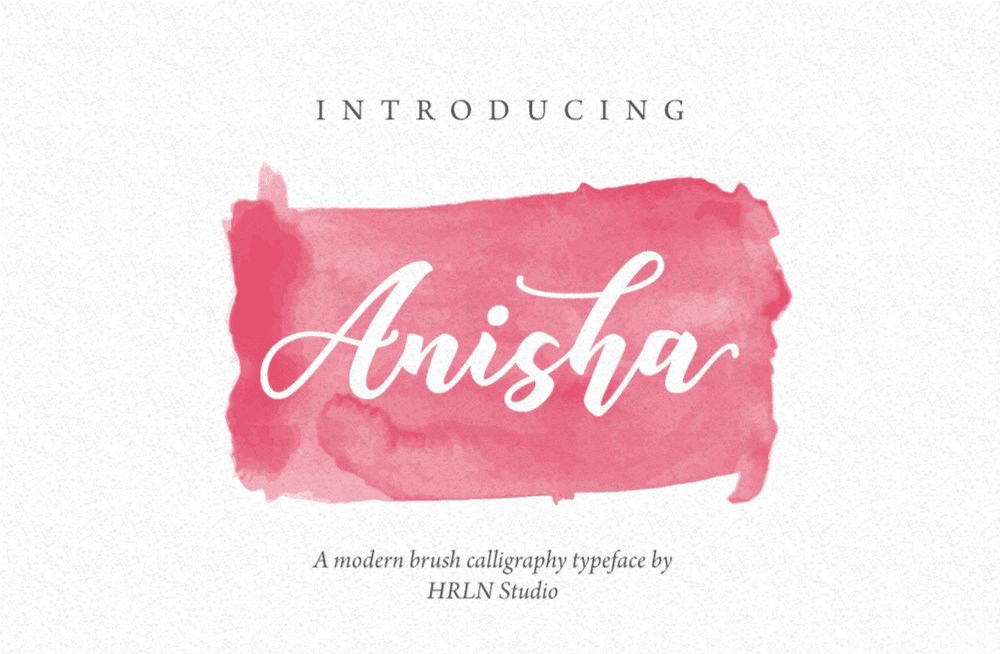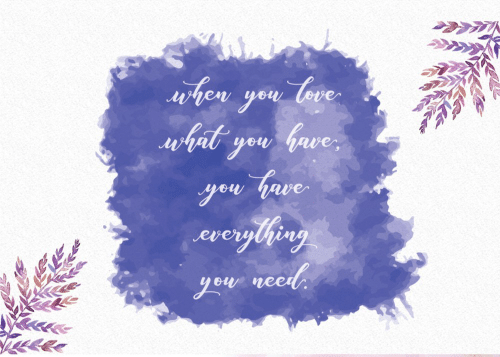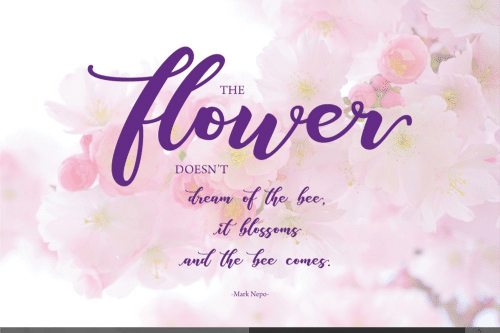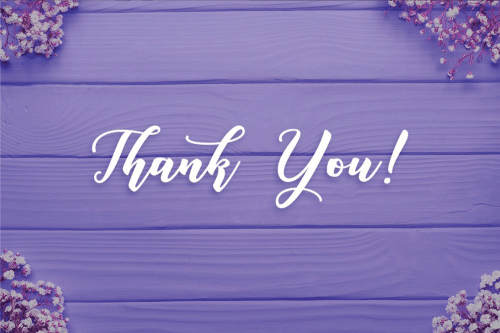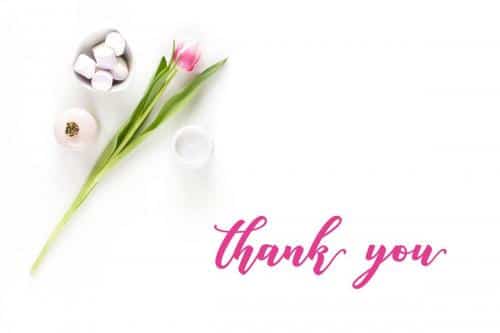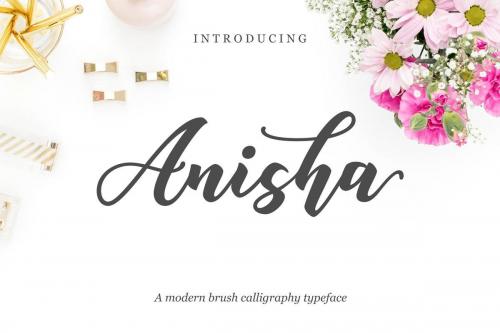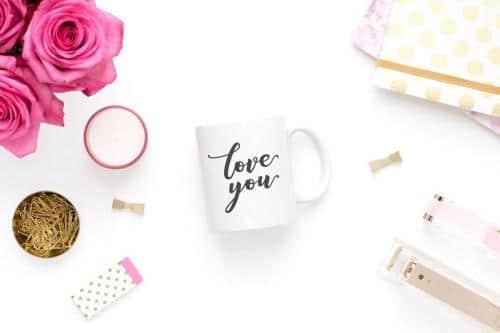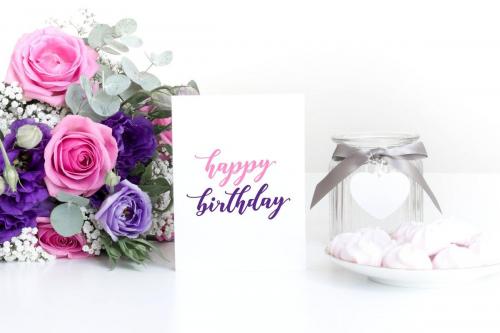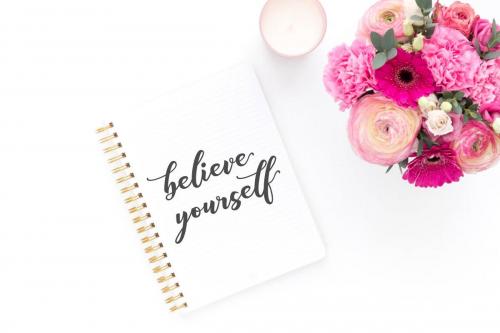
Anisha Script is a beautiful modern brush calligraphy font. Suitable for logotype design, quotes, poster, flyer, magazine, t-shirt, pillowcase, wedding invitation, any craft and much more.